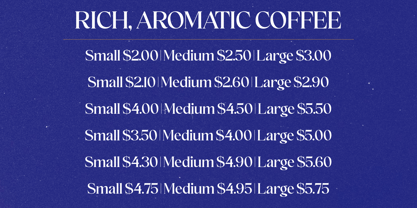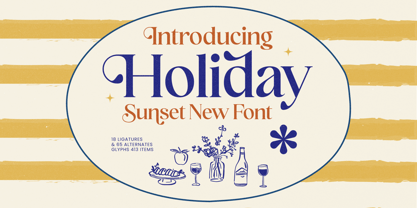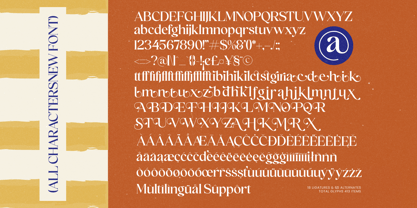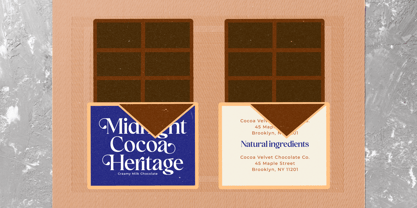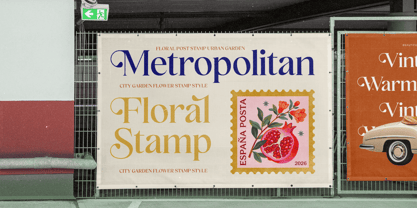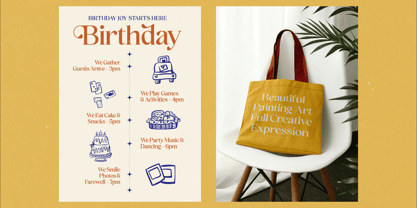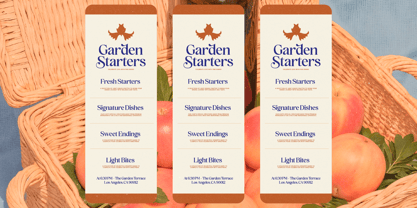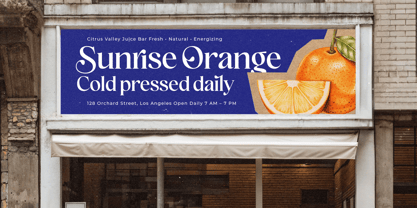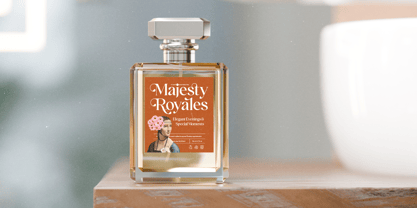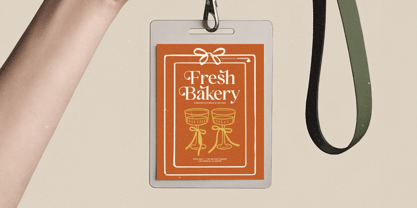
Holiday Sunset
by Timelesstype Studio
The Holiday Sunset Font Family was designed by Heru Utama Putra and published by Timelesstype Studio. Holiday Sunset contains 2 styles and family package options. More about this family
Holiday Sunset is a warm and elegant display serif font inspired by relaxed summer evenings and golden-hour charm. Designed with smooth curves, graceful serifs, and refined proportions, this typeface captures a nostalgic yet contemporary feel that’s perfect for lifestyle branding and creative storytelling. Ideal for packaging, café menus, wine labels, invitations, posters, editorial layouts, and boutique logos, Holiday Sunset brings a soft, welcoming personality to any design. Featuring 413 glyphs, 18 ligatures, and 65 alternates, it offers versatile typographic options while maintaining its distinctive character. Whether used for standout headlines or stylish subtext, Holiday Sunset delivers warmth, elegance, and timeless sunset-inspired aesthetics across print and digital media.